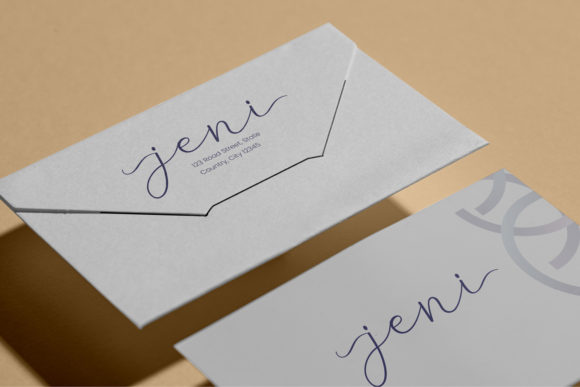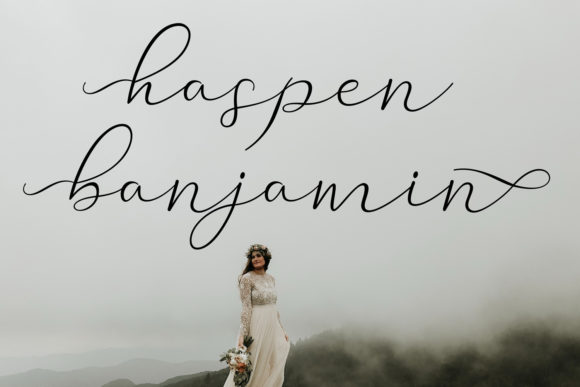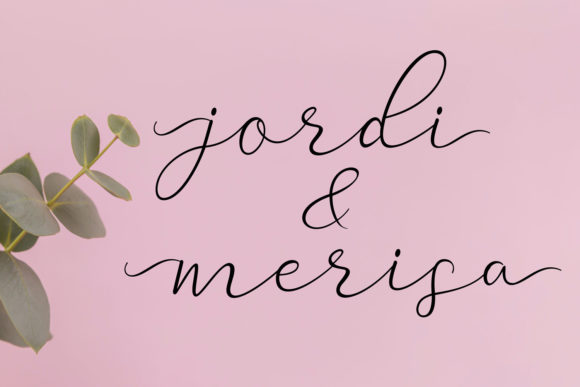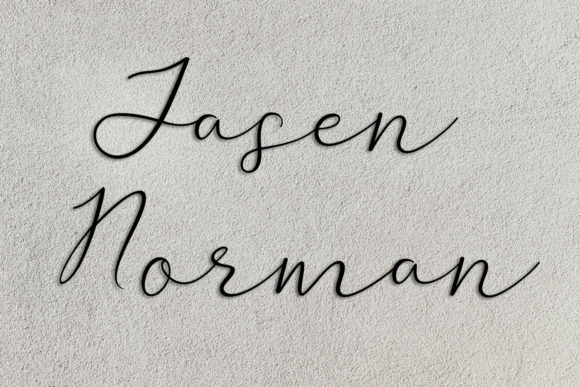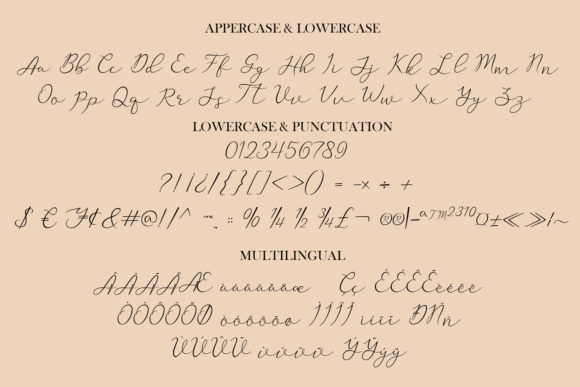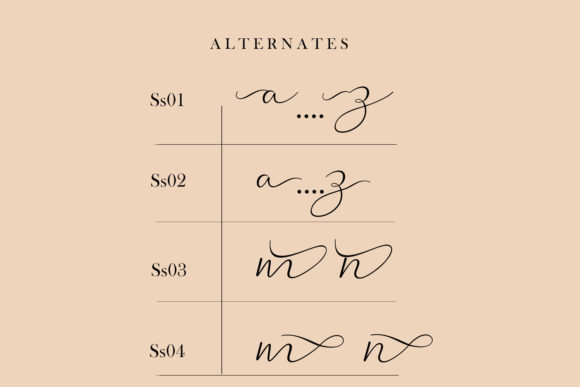
Auran Font: A Charming Script Font for Designers and Crafters
Are you looking for a font that adds a touch of playfulness and elegance to your designs? Look no further than Auran Font! This lovely script font features charming, playful characters that seem to dance along the baseline, making it perfect for a variety of design projects. In this article, we’ll take a closer look at Auran Font, its features, and how it can elevate your designs.
What is Auran Font?
Auran Font is a script font designed to add a touch of whimsy and charm to your designs. Its playful characters are carefully crafted to create a sense of movement and energy, making it perfect for designs that require a bit of personality. Whether you’re working on a branding project, creating a social media graphic, or designing a craft project, Auran Font is sure to impress.
Key Features of Auran Font
So, what makes Auran Font so special? Here are some of its key features:
- Charming and Playful Characters: Auran Font features characters that seem to dance along the baseline, adding a touch of playfulness and elegance to your designs.
- PUA Encoded: Auran Font is PUA (Private Use Area) encoded, which means you can access all of the glyphs and swashes with ease. This makes it easy to use the font in your designs and customize it to your needs.
Benefits of Using Auran Font
So, why should you choose Auran Font for your design projects? Here are some of the benefits of using this lovely script font:
- Adds Personality to Your Designs: Auran Font adds a touch of personality and whimsy to your designs, making them stand out from the crowd.
- Perfect for Branding and Marketing: Auran Font is perfect for branding and marketing projects, as it adds a touch of elegance and sophistication to your designs.
- Great for Crafters and DIY Enthusiasts: Auran Font is also great for crafters and DIY enthusiasts, as it can be used to create a variety of craft projects, such as signs, cards, and scrapbooking pages.
- Experiment with Different Styles: Auran Font comes with a range of glyphs and swashes, so don’t be afraid to experiment with different styles and combinations to create a unique look.
In conclusion, Auran Font is a charming script font that adds a touch of playfulness and elegance to your designs. With its PUA encoding and easy-to-use design, it’s perfect for designers and crafters alike. Whether you’re working on a branding project, creating a social media graphic, or designing a craft project, Auran Font is sure to impress. So why not give it a try and see the difference it can make in your designs?
- Font Pairing Tips: Auran Font pairs well with a variety of fonts, including sans-serif fonts and other script fonts. Experiment with different pairings to find the perfect combination for your design.
By following these tips and resources, you can get the most out of Auran Font and create stunning designs that showcase its charming and playful characters.